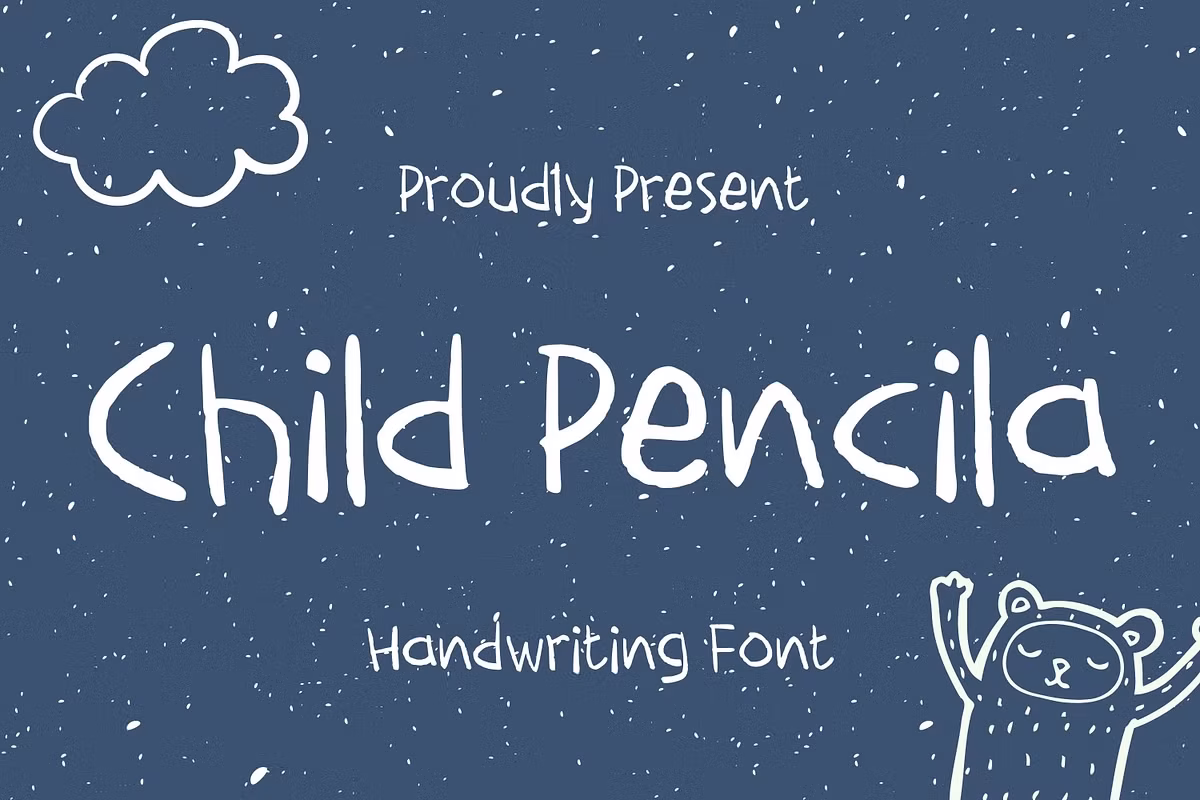
The Child Pencila Font Free Download is a playful and fun typeface inspired by children's handwriting. With its lighthearted and creative letterforms, this font is perfect for projects that need a youthful, whimsical touch. Whether you're designing for children’s books, educational materials, greeting cards, or creative branding, Child Pencila Font adds a charming, personal feel to your work. The playful design makes it ideal for both digital and print media, bringing a sense of joy and creativity to any project. Please note, for commercial use, a license purchase is required. However, you can easily download the Child Pencila Font Free Download for free for personal use and explore its potential in your designs. Download the Child Pencila Font Free Download today and infuse your work with a delightful, handwritten charm.